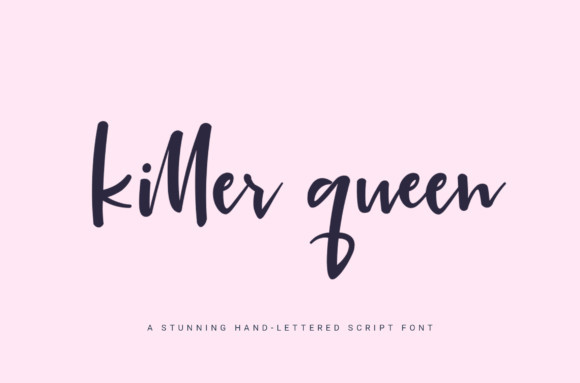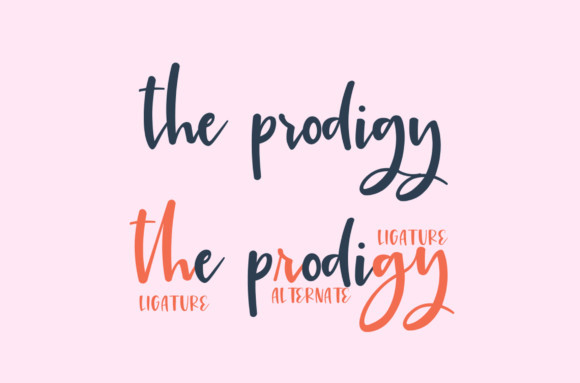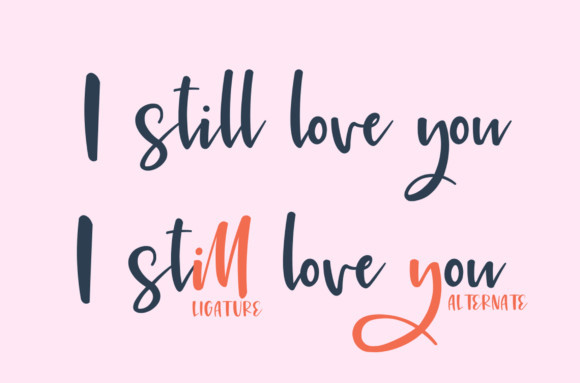
Killer Queen Font
Killer Queen FontKiller Queen is a bold and friendly handwritten font.This font is perfect for branding projects, wedding designs, advertisements, food, stationary, product packaging, product designs, label, photography, invitation, quotes and any projects that makes them extraordinary!